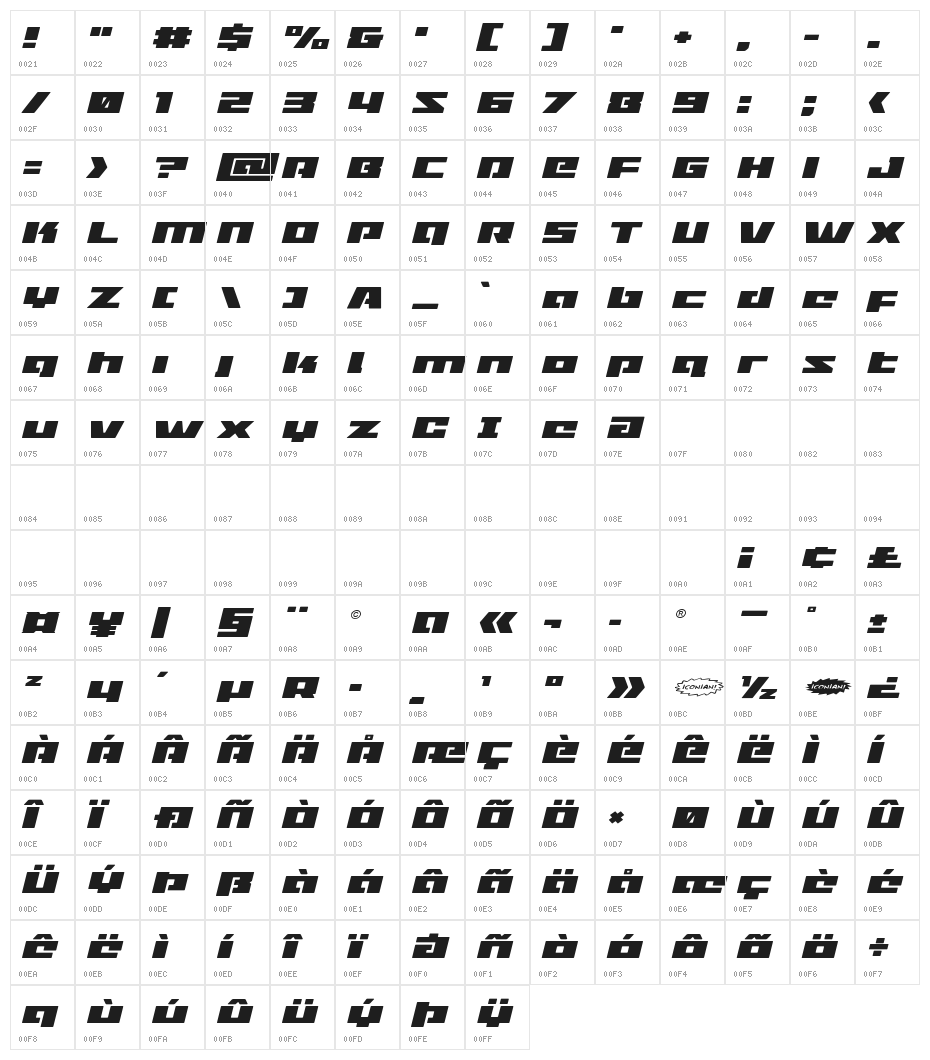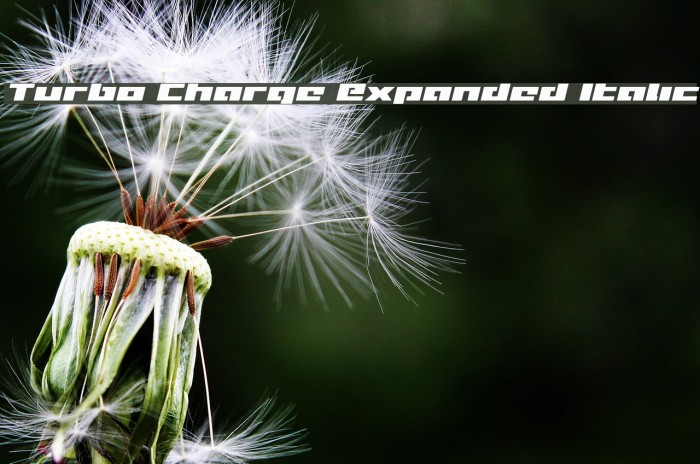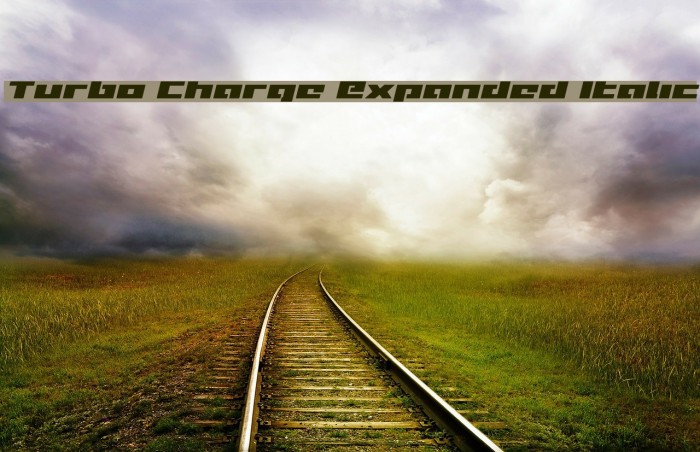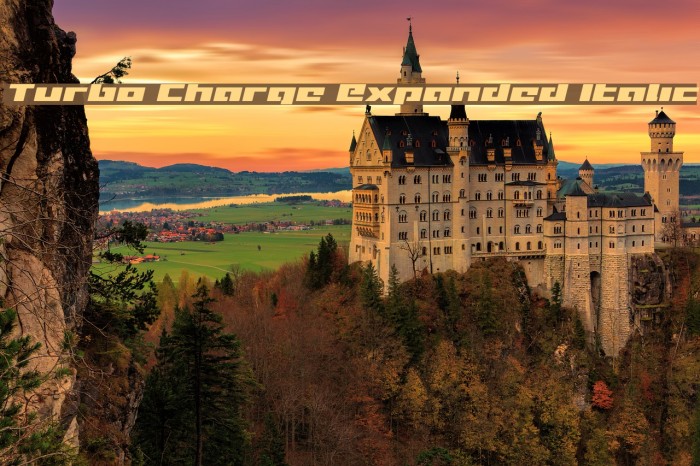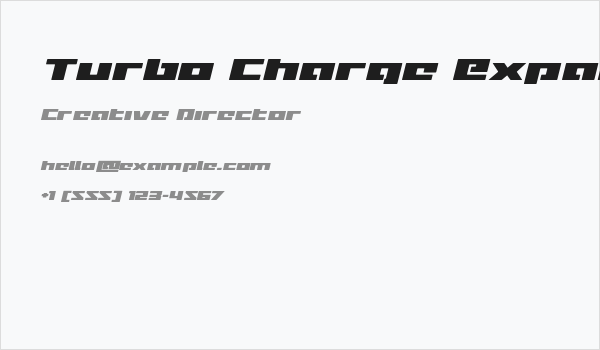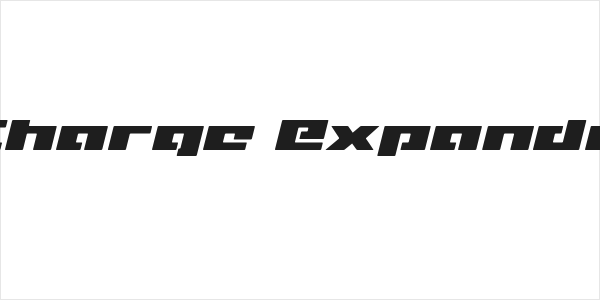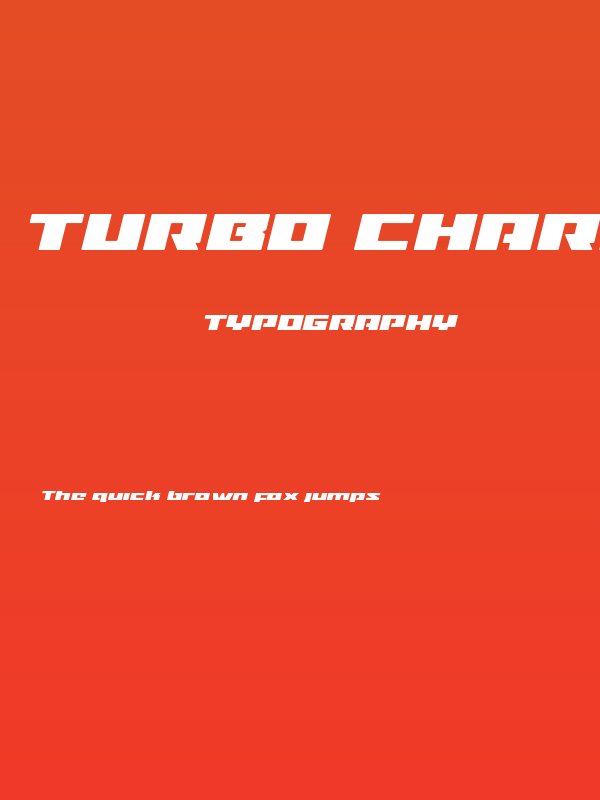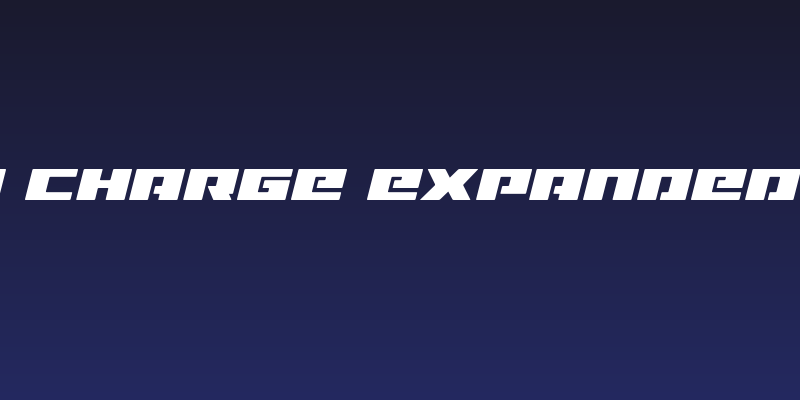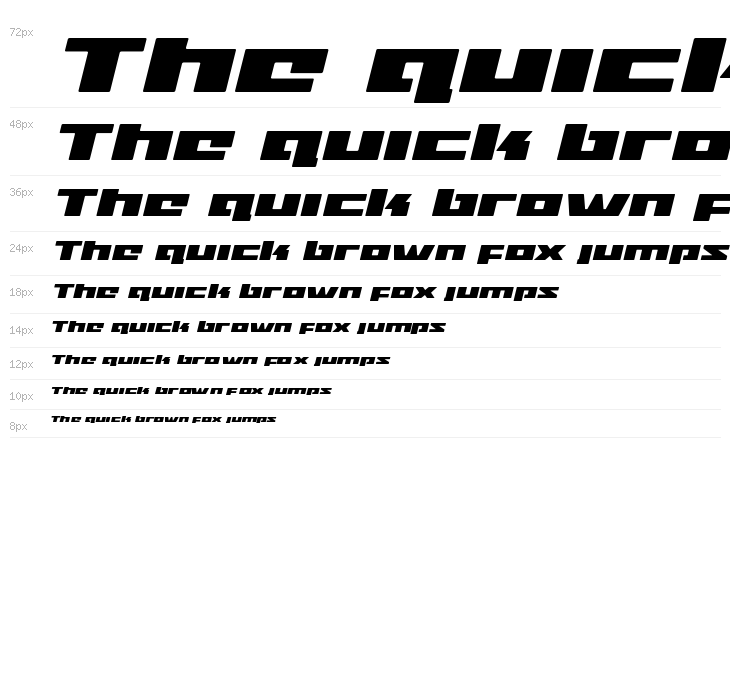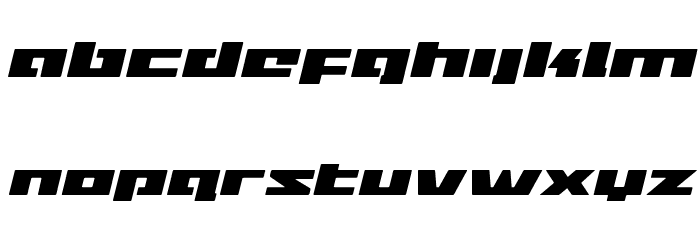
Turbo Charge Expanded Italic Font
Turbo Charge Expanded Italic Description
This font features a bold and dynamic style with an italic slant, giving it a sense of motion and energy. The characters are expanded, providing a wide stance that enhances readability while maintaining a strong visual impact. The geometric shapes and sharp angles contribute to a futuristic and modern appearance, making it suitable for projects that require a bold statement. The uppercase and lowercase letters are consistent in style, with numbers and special characters designed to match the overall aesthetic. The font's distinctiveness lies in its ability to convey speed and power, making it ideal for automotive or tech-related designs.
| Use Case | Logos, Headlines, Advertising |
| Proposed Projects | Ideal for automotive branding, tech-related designs, sports team logos, and dynamic advertising. |